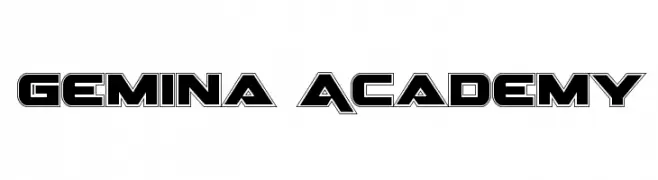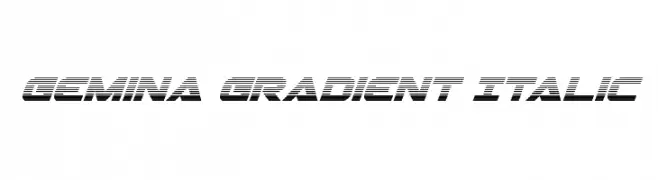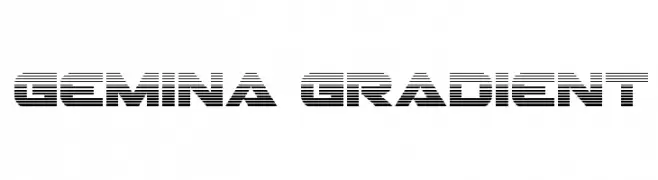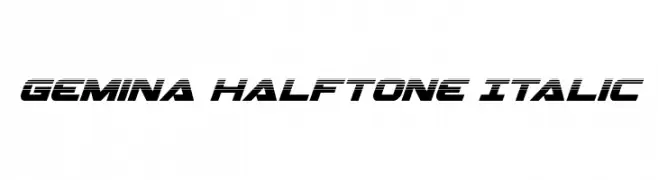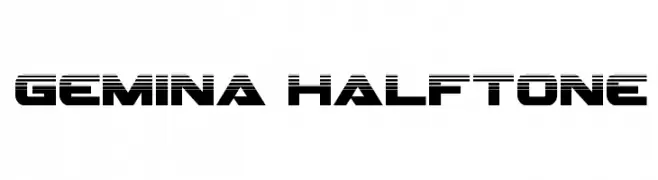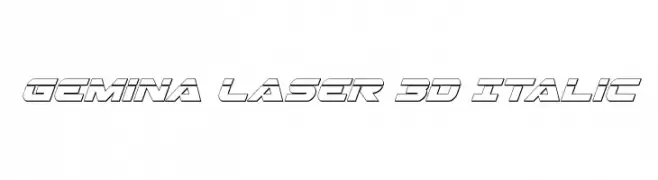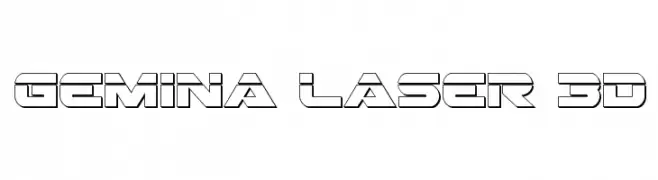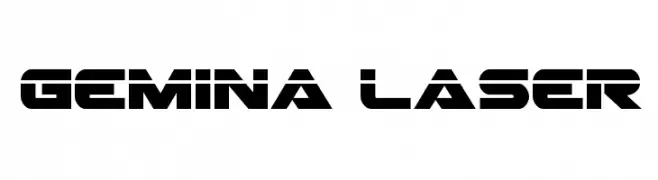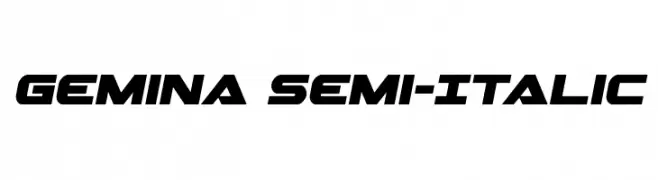
A bold, geometric font with a futuristic, outlined style.
A futuristic, gradient-style font with horizontal lines and bold, angular characters.
A futuristic, italicized font with a gradient effect and striped pattern.
A bold, futuristic font with a halftone effect and geometric design.
A bold, italicized font with a futuristic halftone effect and dynamic style.
A futuristic, geometric font with sharp angles and bold lines.
A futuristic, geometric font with a 3D laser-cut appearance.
A futuristic, italicized font with a 3D effect and angular design.
A bold, angular, semi-italic font with a futuristic design.